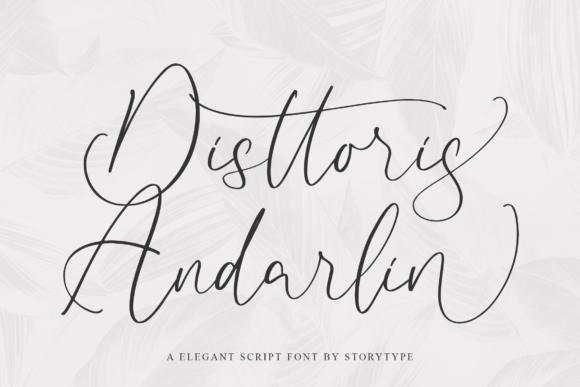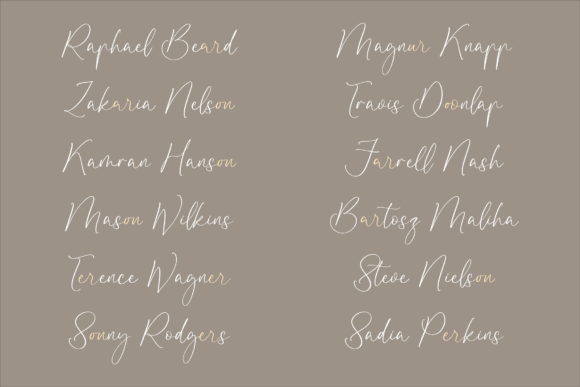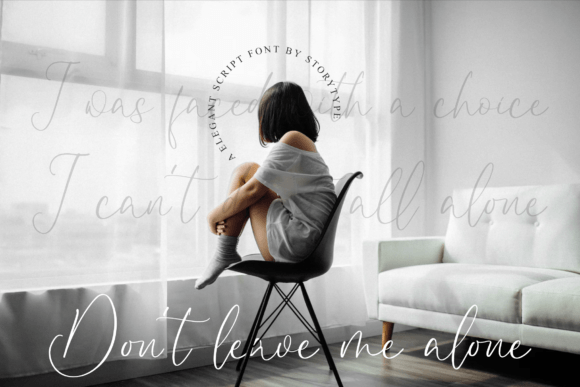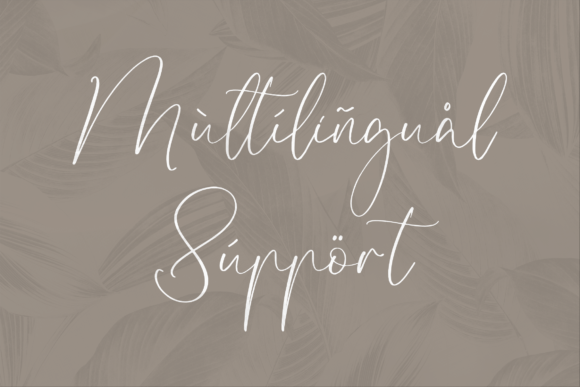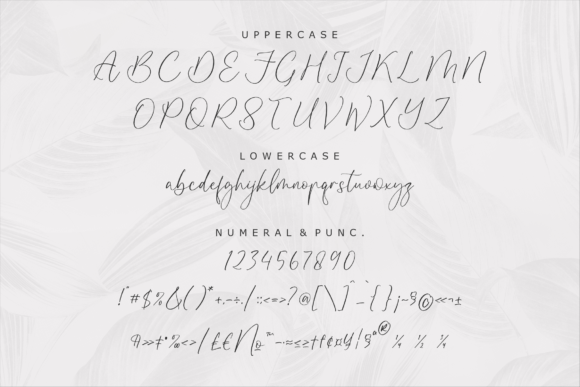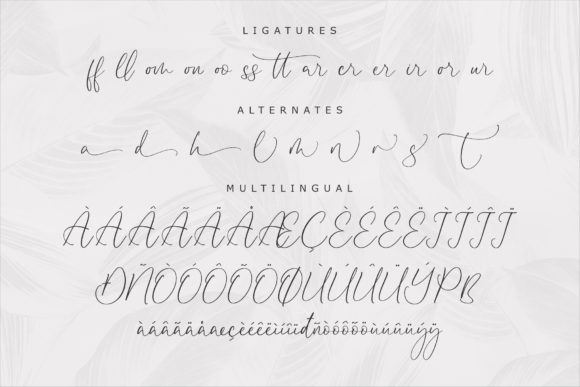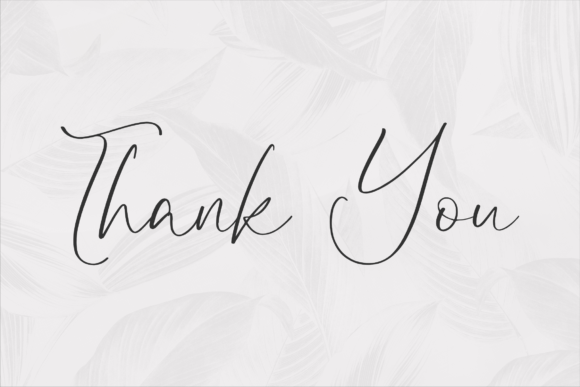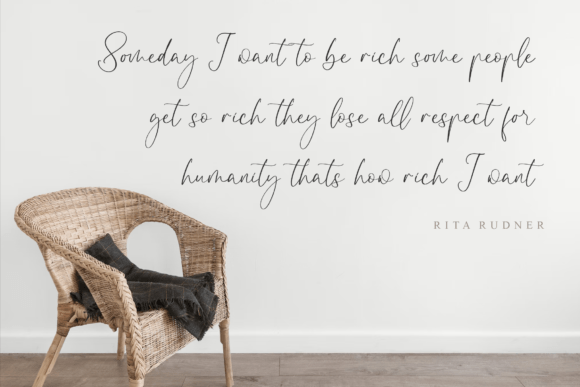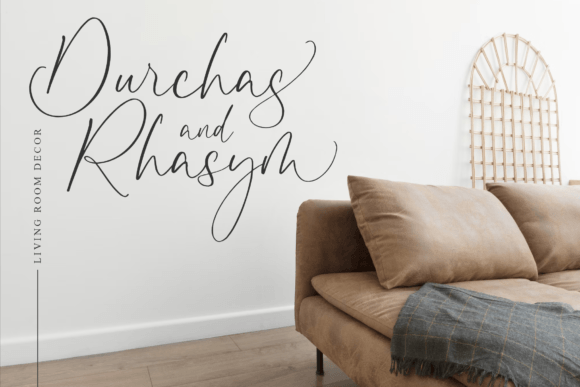
Disttoris Andarlin
About Disttoris Andarlin
Disttoris Andarlin is a stylish and luxurious script font. Whether you’re looking for fonts for Instagram or calligraphy scripts for DIY projects, this font will turn any creative idea into a true piece of art!